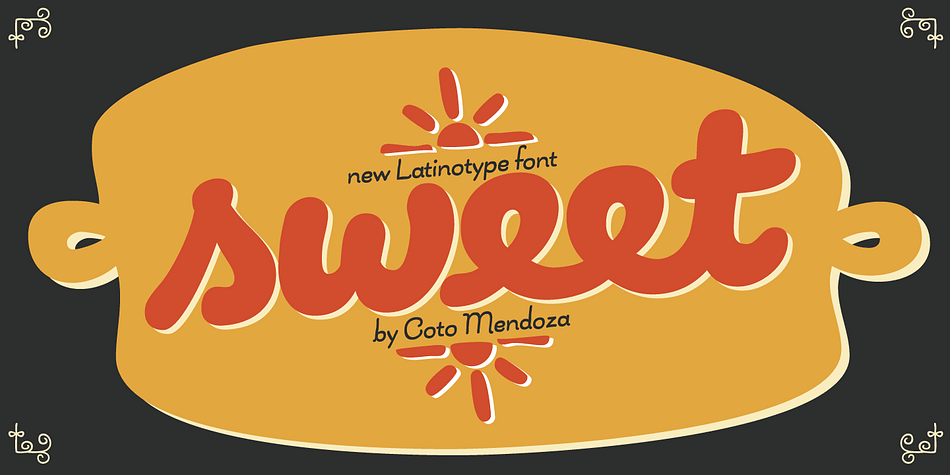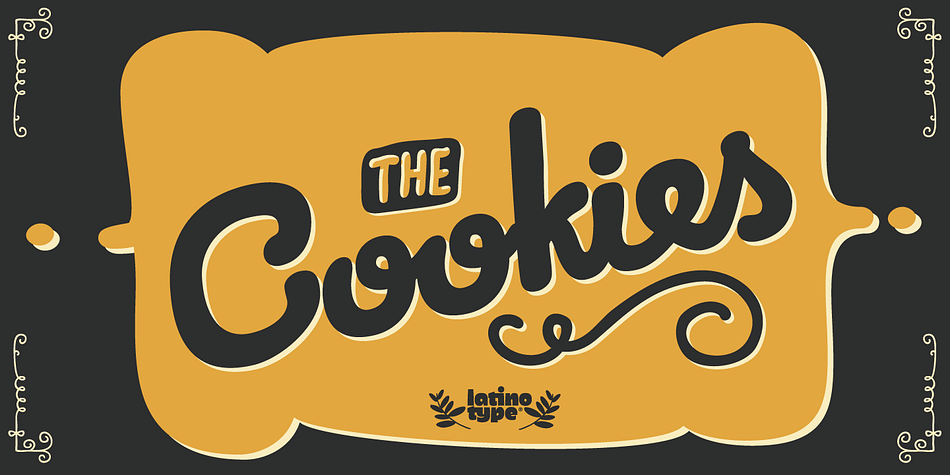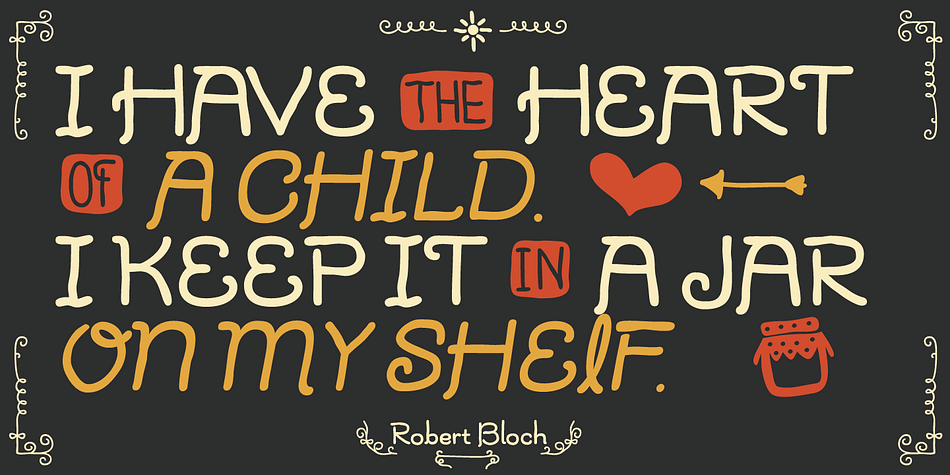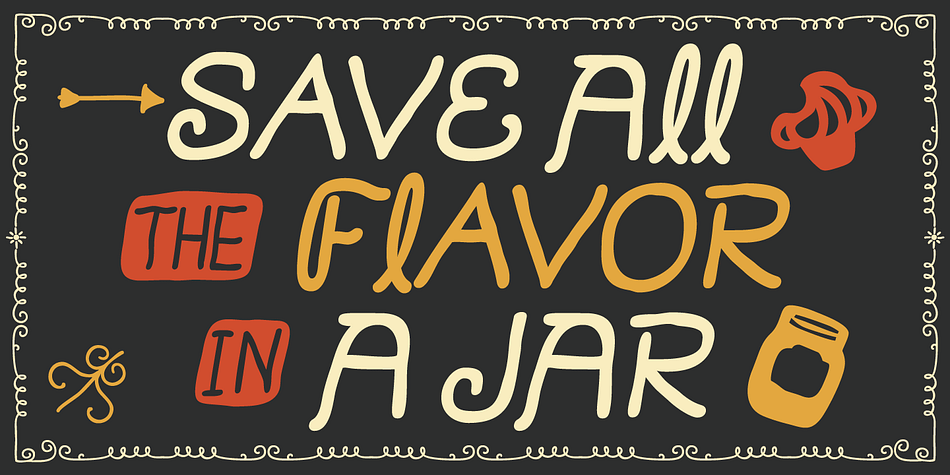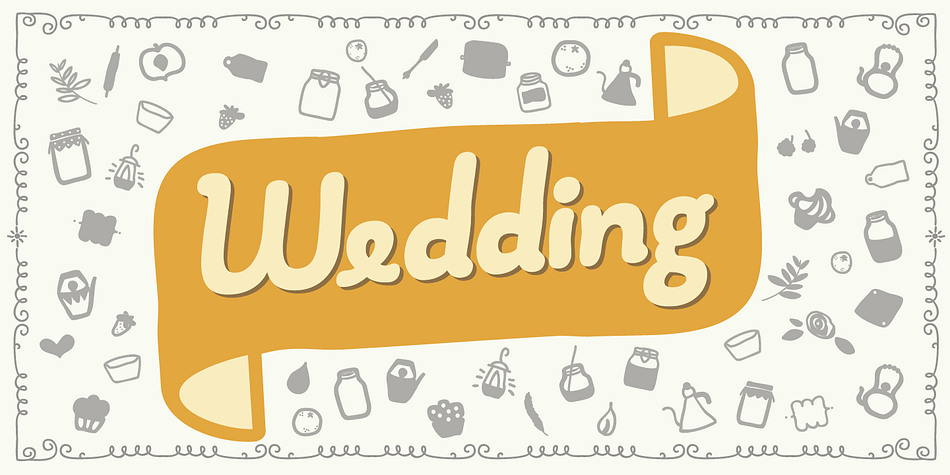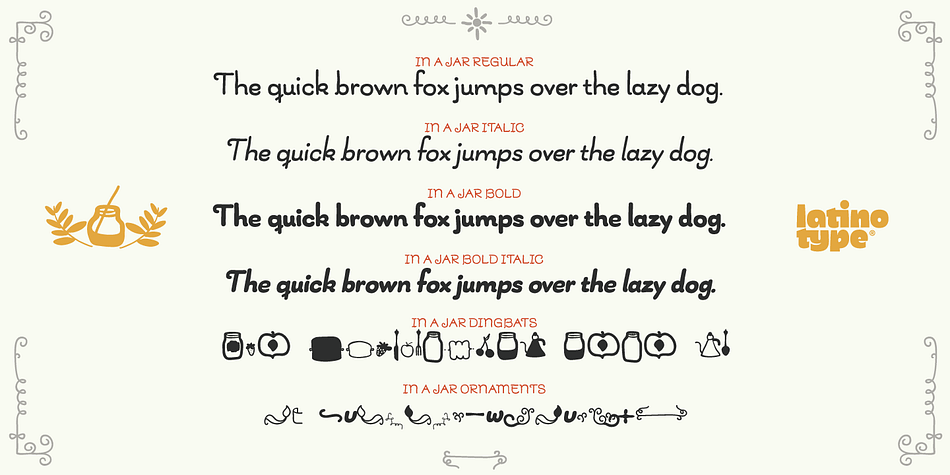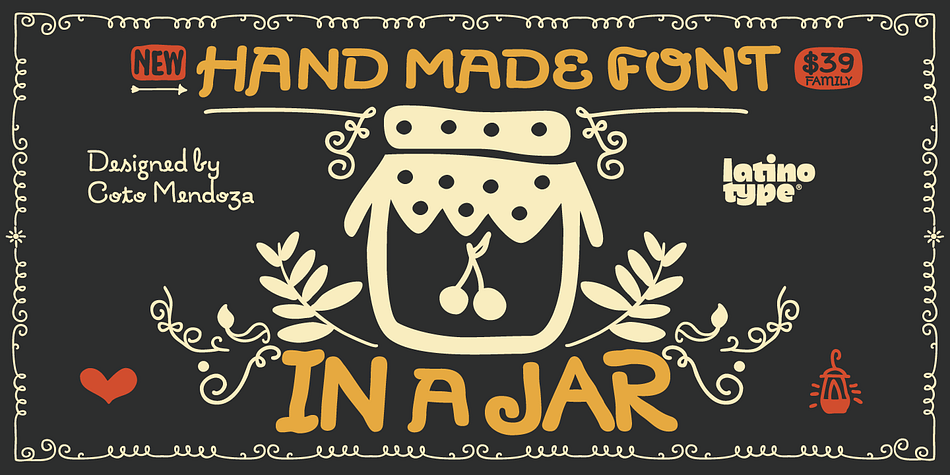
In a Jar is a dingbat and hand drawn font family. This typeface has six styles and was published by Latinotype.
In a Jar is a display typeface based in hand lettering. Inspired by the grandmother’s kitchen, its colors, forms, smells and the new way for rescue this old things.
Designed for use in short text and big sizes is perfect for brand design, headlines, labels, greetings cards and all kind of things related to kitchen and foods.
In a Jar is a sweet little family that include alternates, compounds words, ligatures plus a series of dingbats and ornaments very cute to compliment and accentuate the handmade design.
Designed by Coto Mendoza with technical support of Luciano Vergara